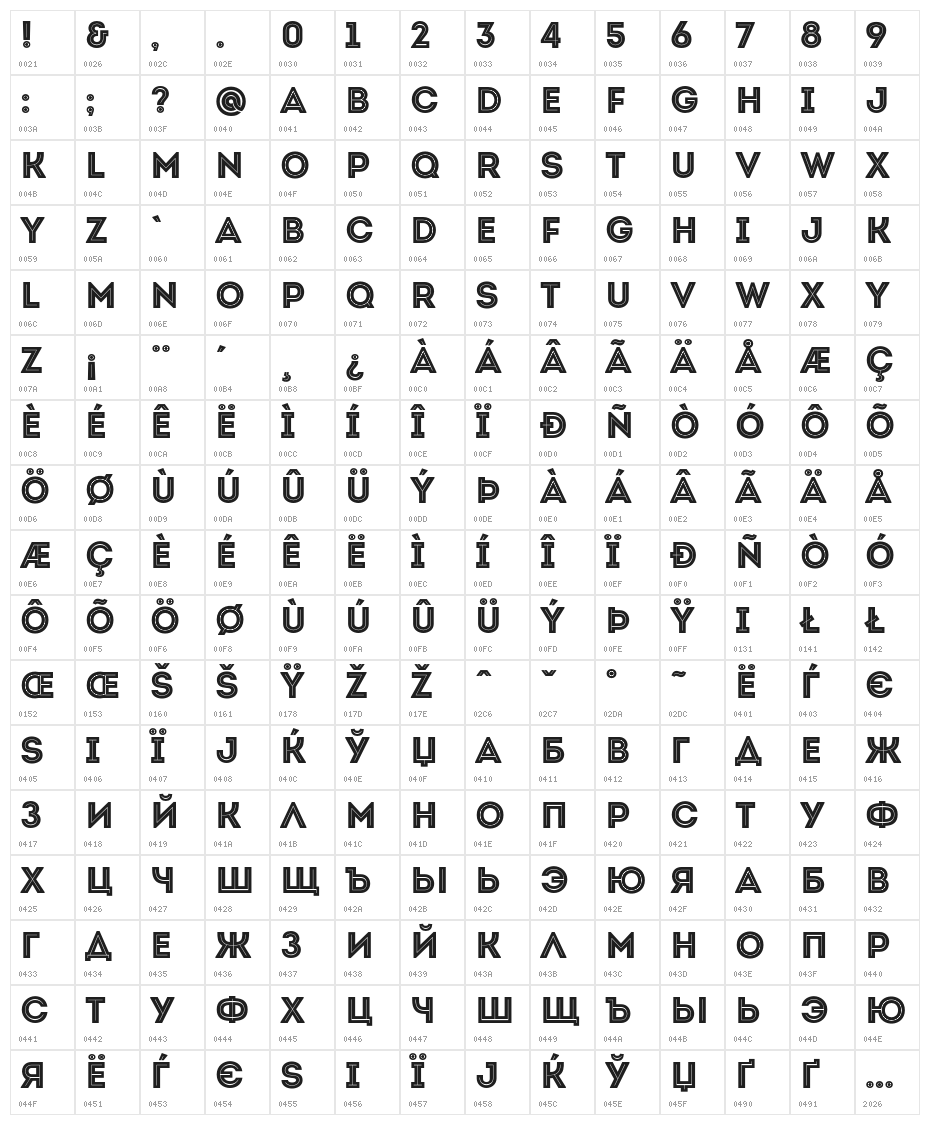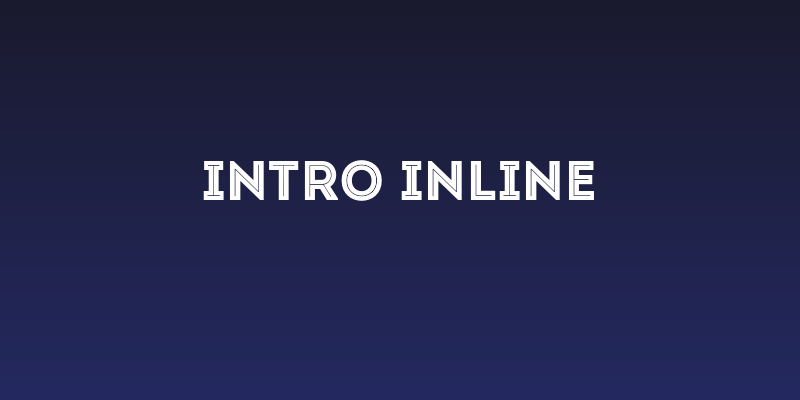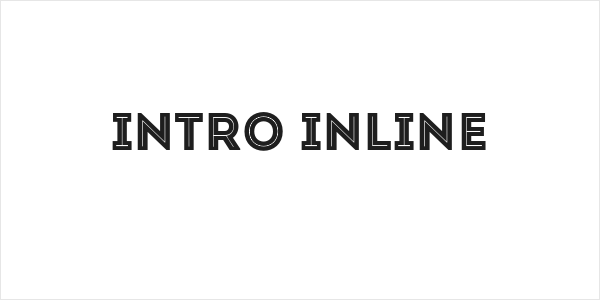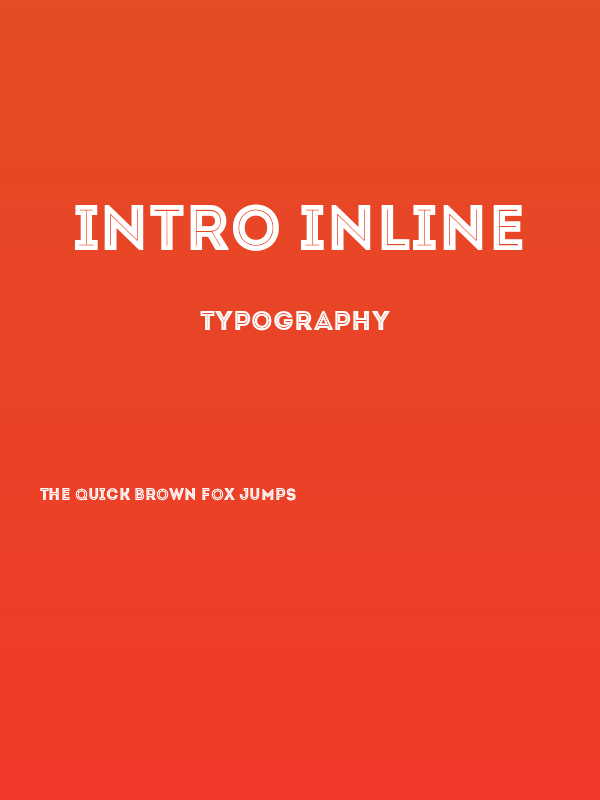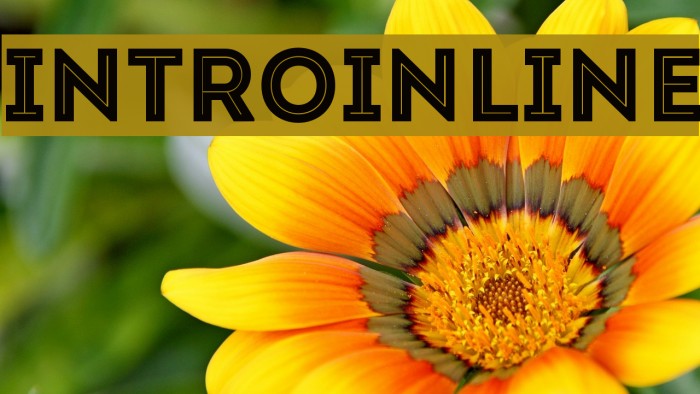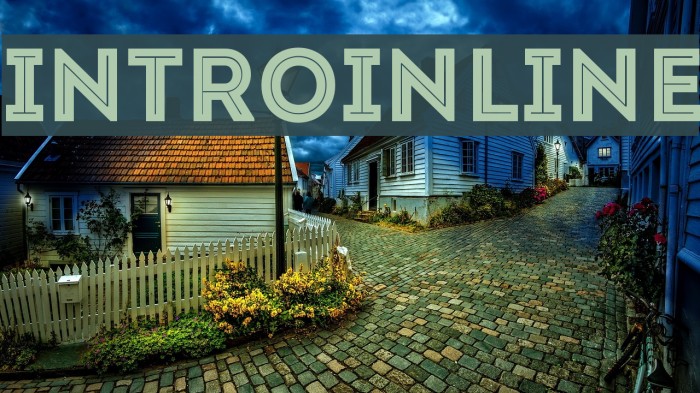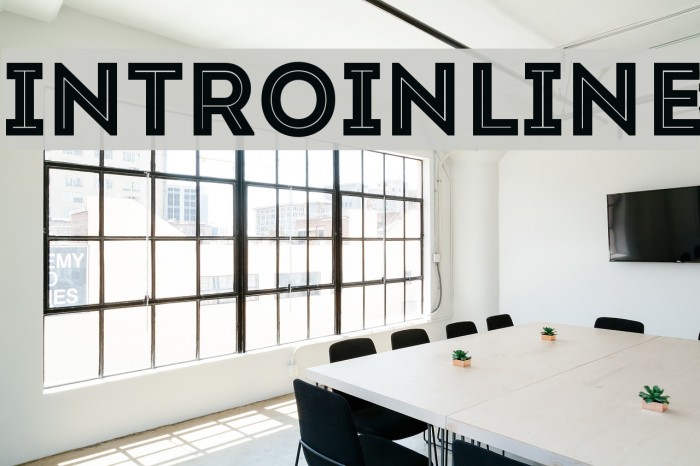
Intro-Inline Font
Intro-Inline Description
This font features a bold, geometric sans-serif style with a distinct inline design that adds depth and dimension to each character. The uppercase letters are uniform in height, with clean lines and a modern aesthetic. The inline detail creates a striking visual effect, making the font stand out in any design. The numerals are equally bold and maintain the same inline style, ensuring consistency across all characters. Special characters like the ampersand and exclamation mark are designed with the same attention to detail, making them visually cohesive with the rest of the font.
| Proposed Projects | Ideal for branding, posters, headlines, and any design project that requires a modern, eye-catching typeface. |